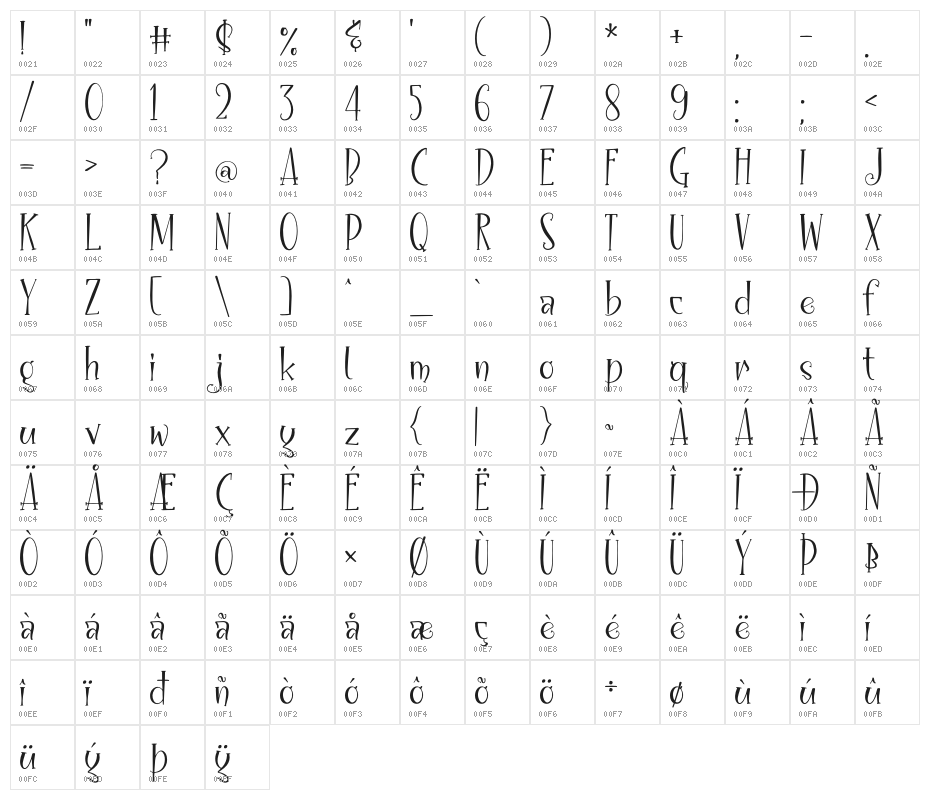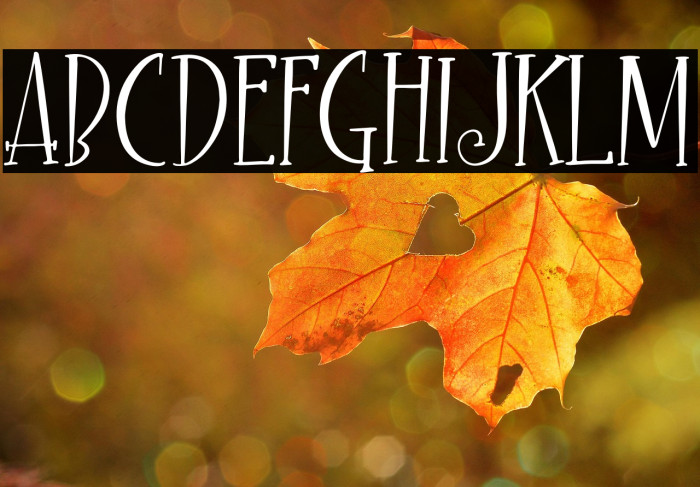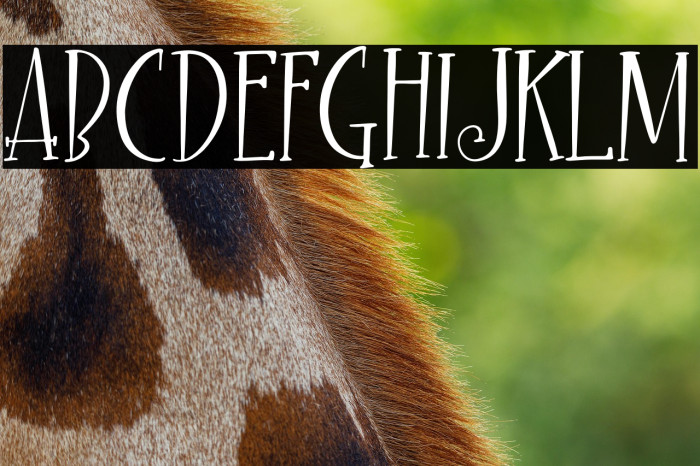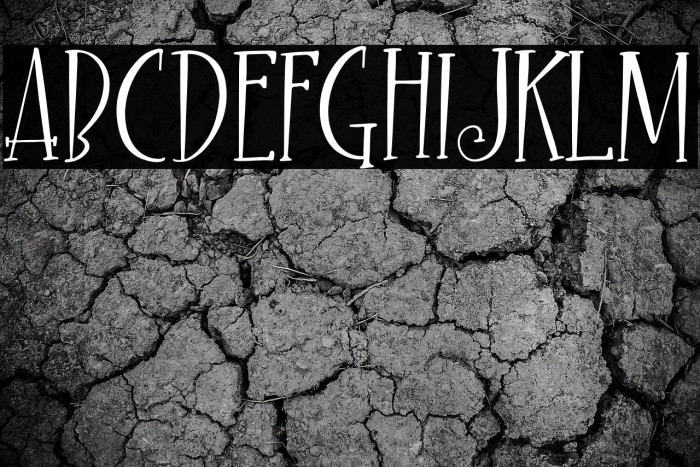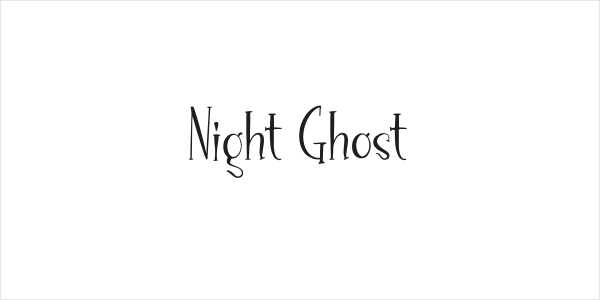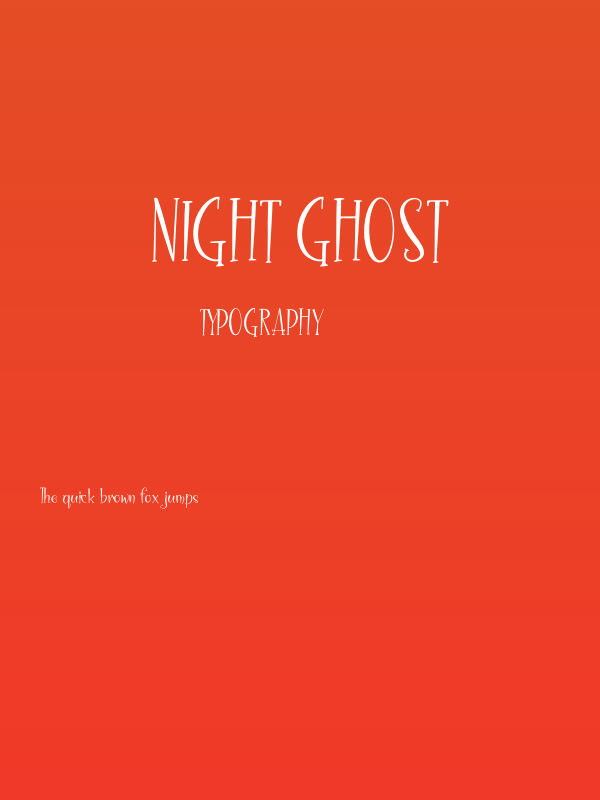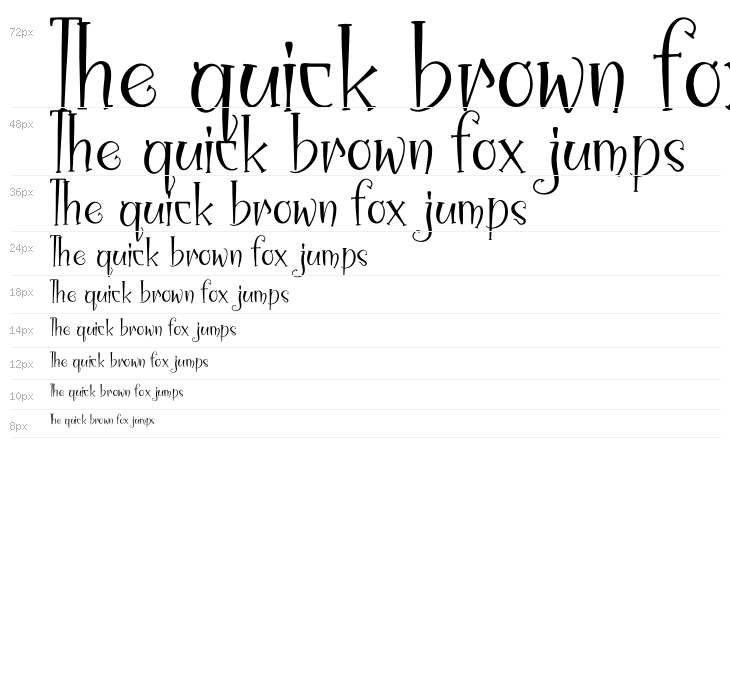
Night Ghost Font
Night Ghost Description
This font features a whimsical and slightly eerie design, characterized by elongated and uneven strokes that give it a ghostly appearance. The uppercase letters are tall and narrow, with some letters having unique curls and twists, adding to its playful yet mysterious vibe. The lowercase letters maintain a similar style, with a mix of straight and curved lines that create an intriguing visual rhythm. The numbers are consistent with the overall theme, featuring exaggerated curves and varying line thickness. Special characters are creatively designed, maintaining the font's distinctive style. This font is ideal for projects that require a touch of the unusual or the fantastical.
| Use Case | Headlines, Posters, Themed Invitations |
| Proposed Projects | Perfect for Halloween-themed designs, fantasy book covers, or spooky event invitations. |